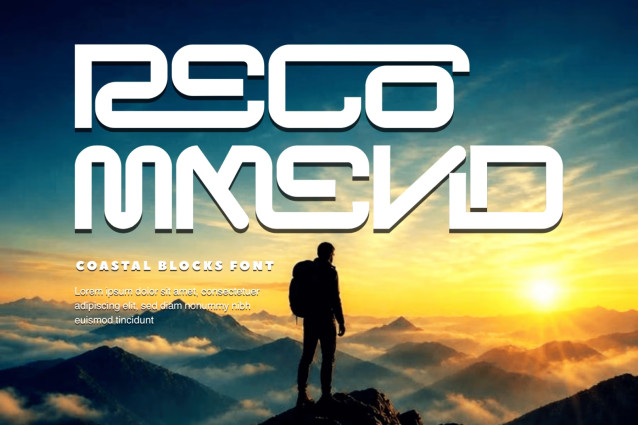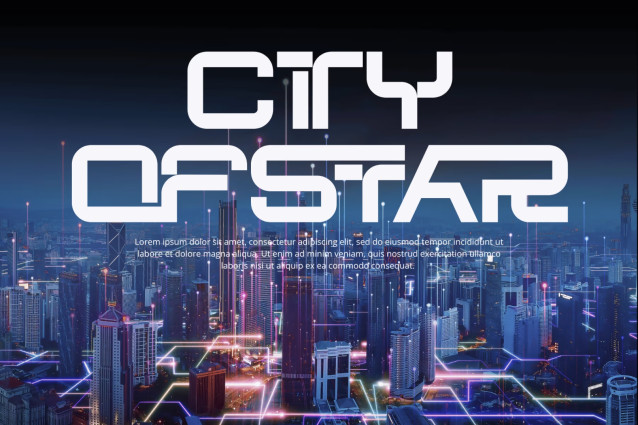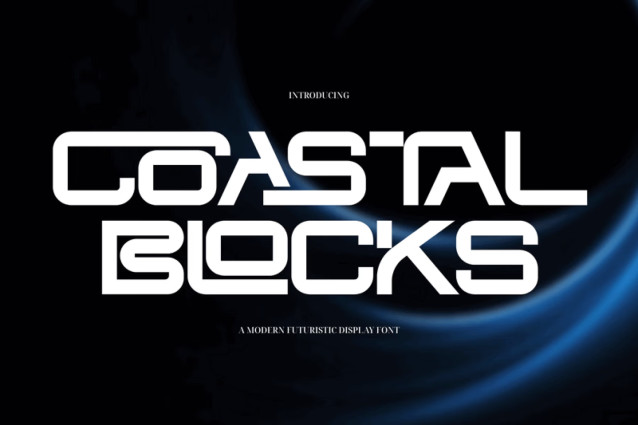
Coastal Blocks – Futuristic Font
Coastal Blocks – Futuristic Font – Futuristic Techno Modular & Geometric Extended Display Font is a high-impact, futuristic display font engineered at the cutting edge of modular block geometry, sci-fi aesthetics, and extended techno typography. Defined by its wide horizontal stance, precision stencil cutouts, and smooth rounded-corner blocks, this font commands immediate visual authority across modern digital layouts.
Designed to give display titles and logotypes a powerful, high-tech presence, Coastal Blocks seamlessly merges mechanical structure with clean futuristic curves. Its bold grid-based construction and distinct open slits make it the definitive typographic choice for esports team brandings, sci-fi gaming titles, technology event posters, automotive graphics, techwear streetwear designs, and high-concept logos.